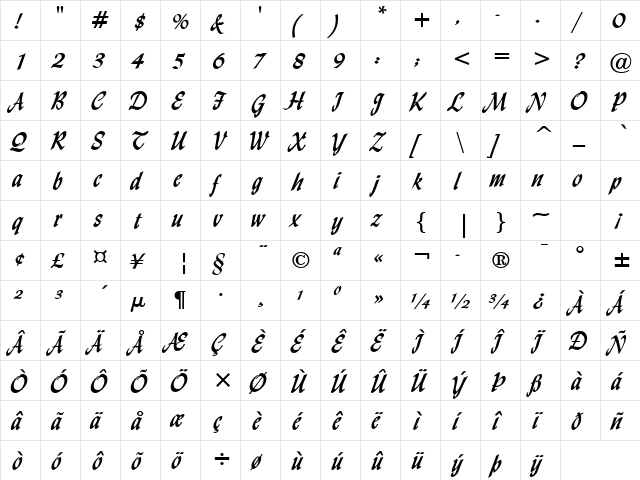
Lynda Script Bold
Design Context for Lynda Script Typeface
Lynda Script brings a calligraphic fluidity to the page — its connecting strokes and expressive curves give it an unmistakably human quality. Its bold stroke weight gives it real presence on the page.
Font Pairing: Combine Lynda Script with a simple geometric sans for maximum contrast — the tension between flowing curves and clean structure is a classic typographic pairing.
Pro Tip: Use Lynda Script for short runs of text — names, titles, or taglines. Extended body copy in script faces tires the eye quickly.